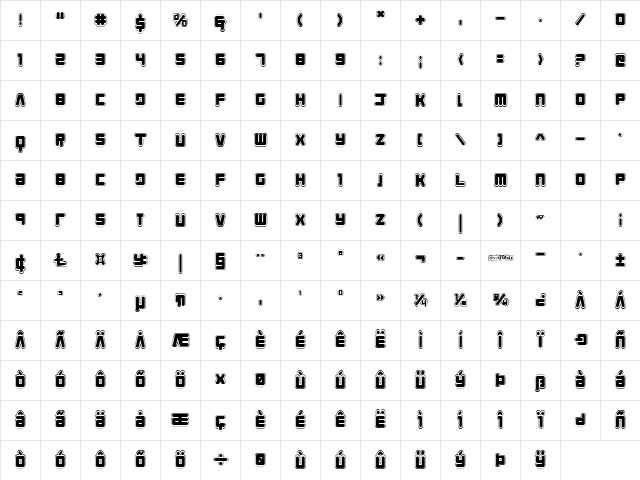
Young Techs Academy Regular
Design Context for Young Techs Academy
Young Techs Academy has a distinctly futuristic character, with geometric precision and clean angles that feel at home in technology, gaming, and sci-fi contexts.
Pro Tip: Try Young Techs Academy with generous letter-spacing in UI labels and navigation - the geometric forms benefit from room to breathe.